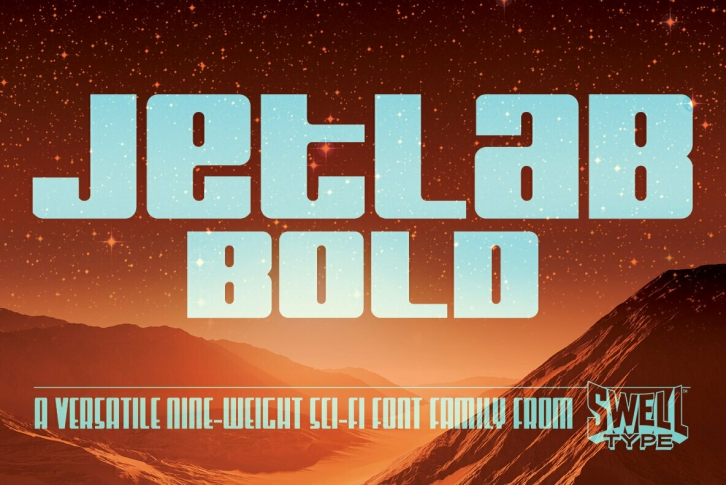
Jetlab is a typographic time machine that drops you squarely into the techno-futuristic optimism of the 1960s, 1970s and 1980s!
- Nine weights provide widths from Squeezed to Stretched plus high, medium and low crossbar options
- upper and lowercase letters provide two distinct styles
- 500 glyphs support 223 languages, including Western & Central Europe and Vietnamese